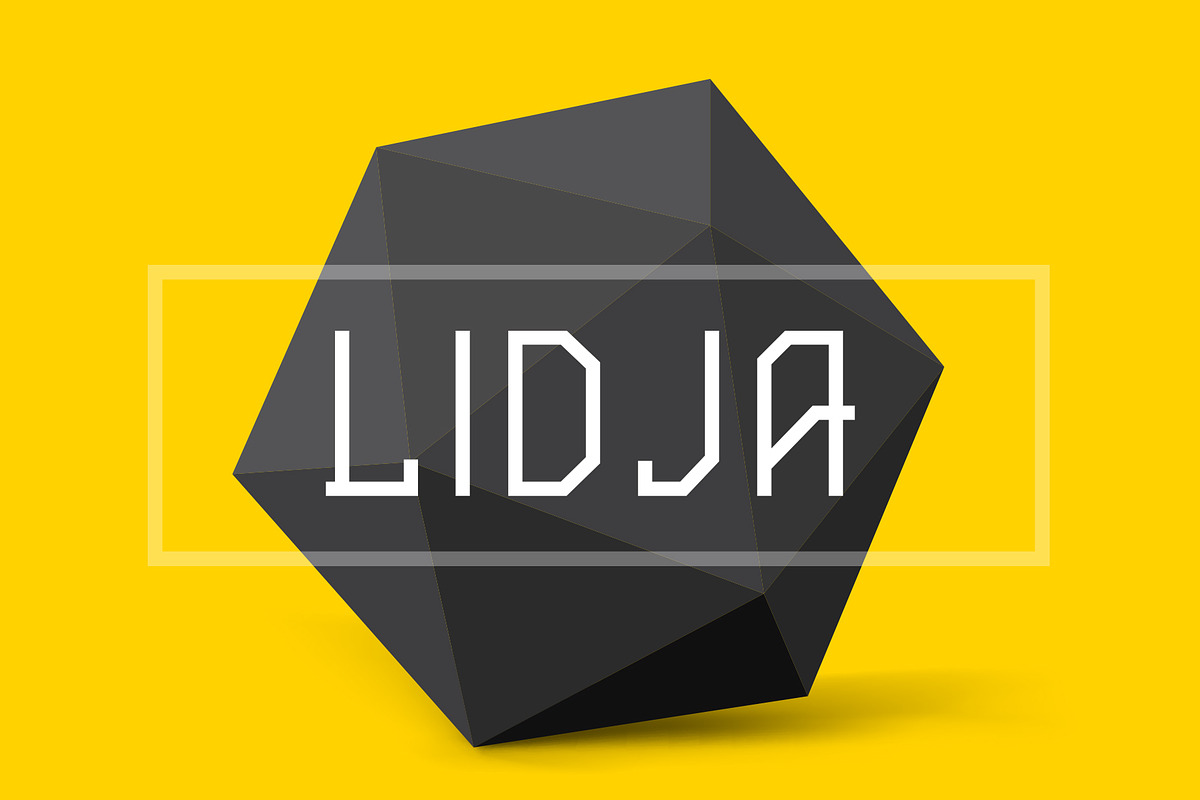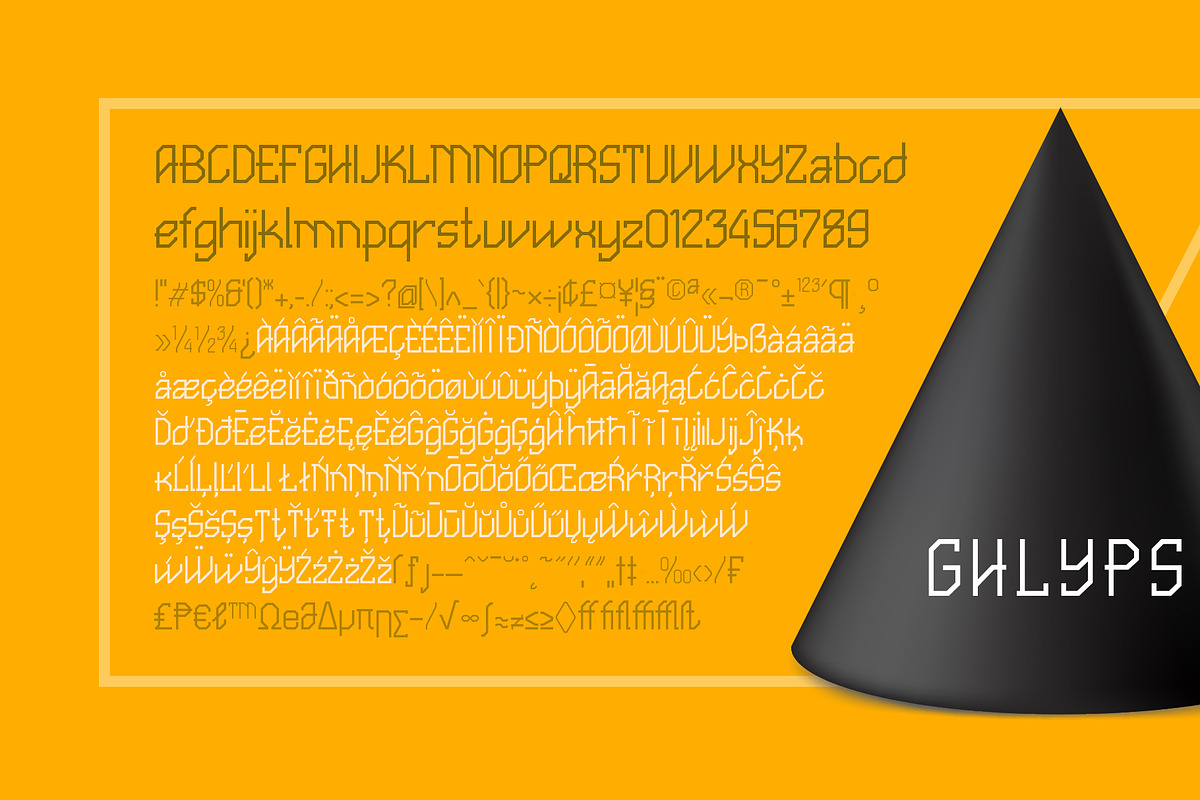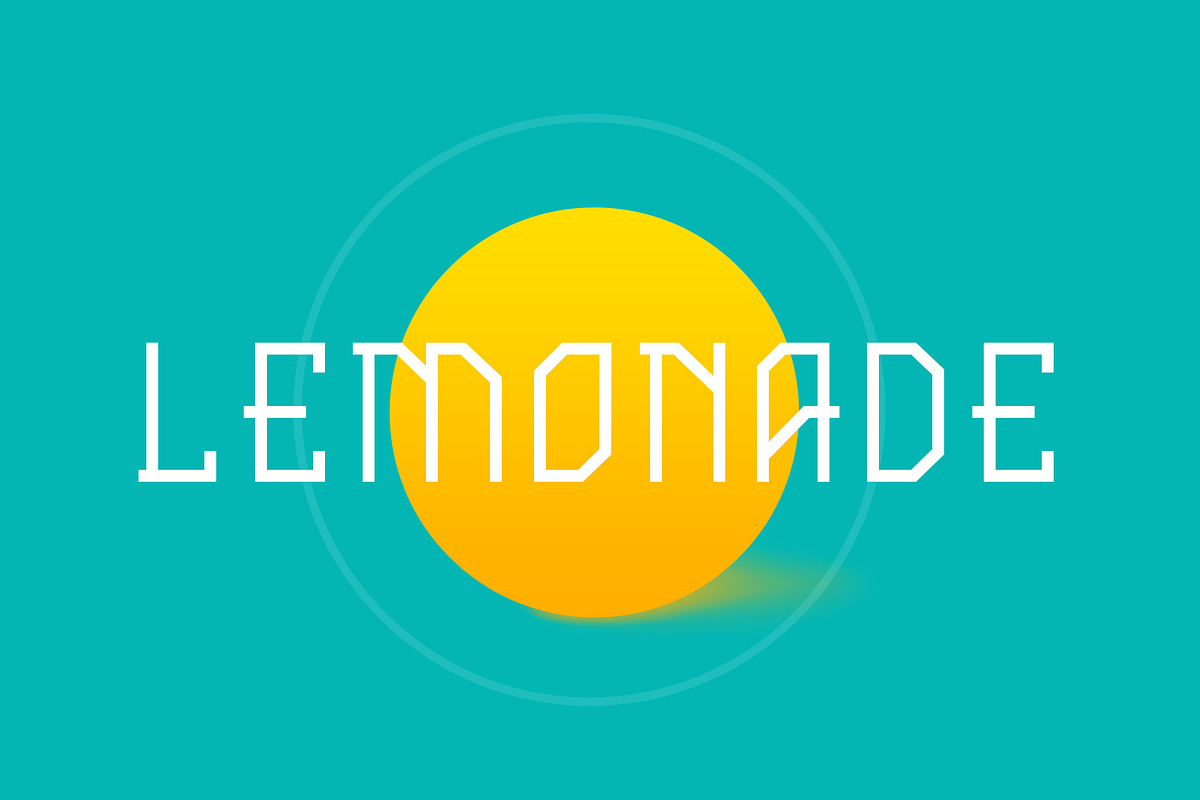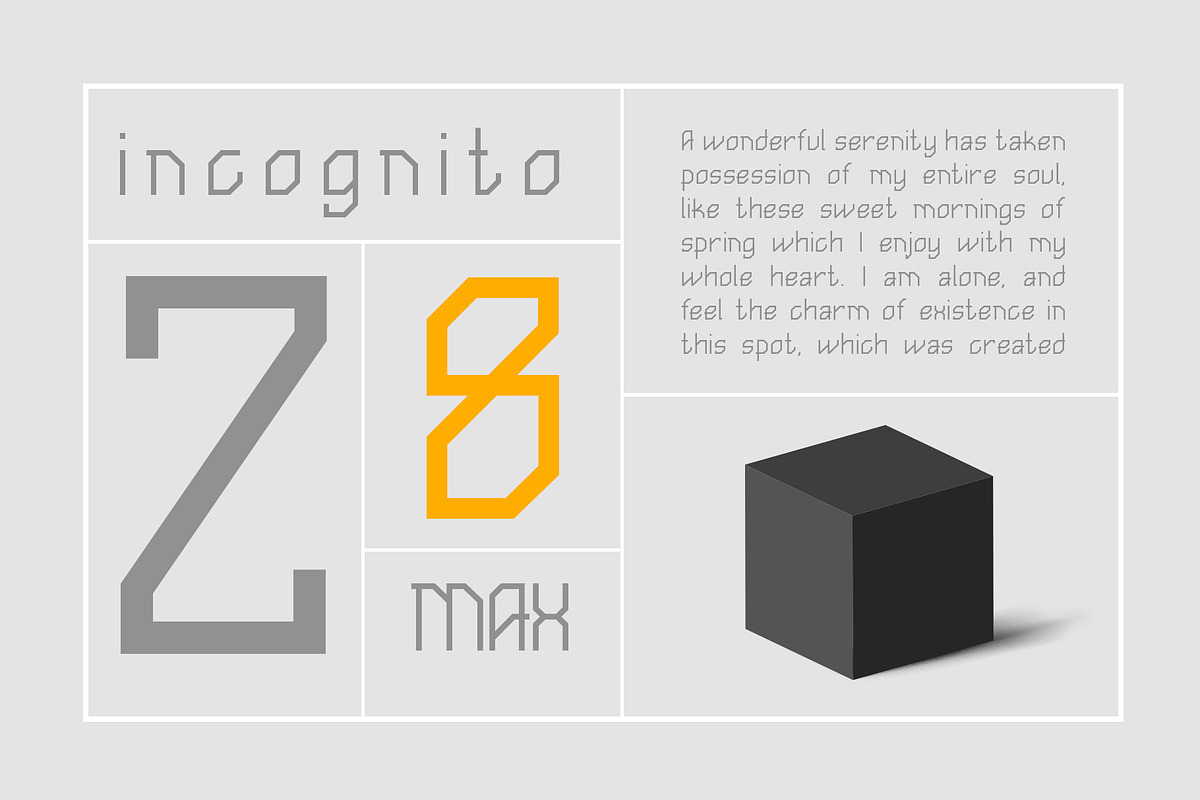
Lidja
Very bold and semi-retro in design, this typeface is suitable for everyday use, personal or commercial work. It would be better for display, headline or poster.